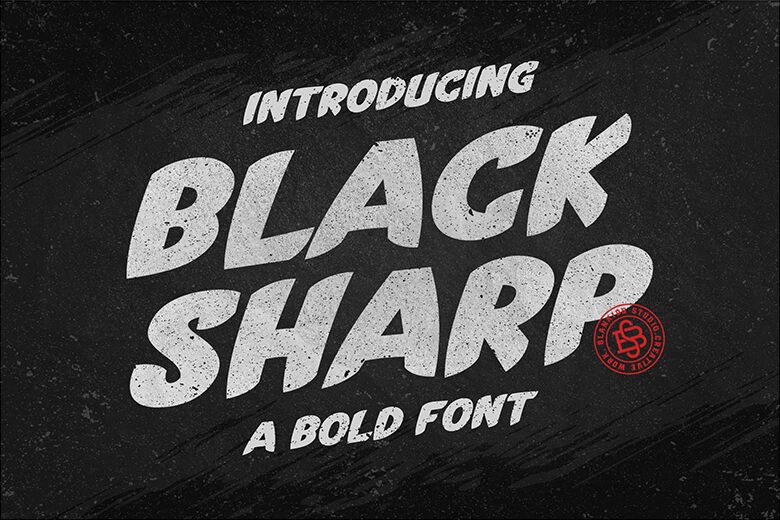
Black Sharp Regular
Black Sharp is an extra-bold display font designed by Bangkit Tri Setiadi that adds a unique touch to any project. With its comic style, this font is perfect for creating eye-catching titles, logos, and posters that demand attention. Its thick strokes and sharp edges make it suitable for designs that require a bold and edgy look. The Black Sharp font is ideal for comic book covers, movie titles, video games, and any project that needs an attention-grabbing font. Give your designs a distinct personality with Black Sharp, the perfect typeface for your next creative project.
Black Sharp by Blankids STudia